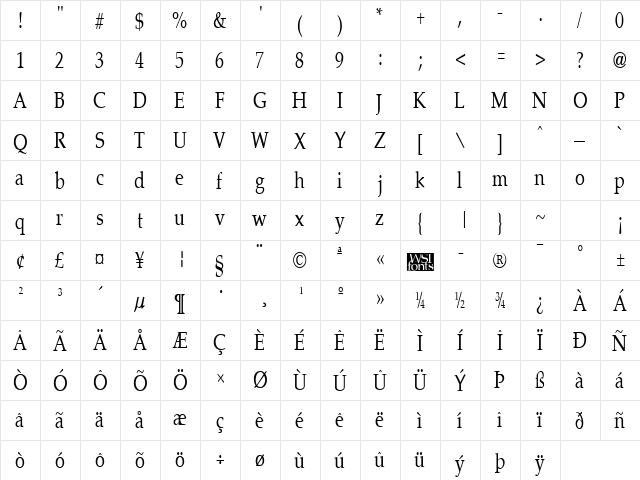
PalisadeCondensed Regular
Design Context for PalisadeCondensed Typeface
PalisadeCondensed offers clean, dependable letterforms without strong stylistic allegiance, making it a practical choice for designers who need flexibility. Its narrow stance lets it pack a punch even in space-constrained designs.